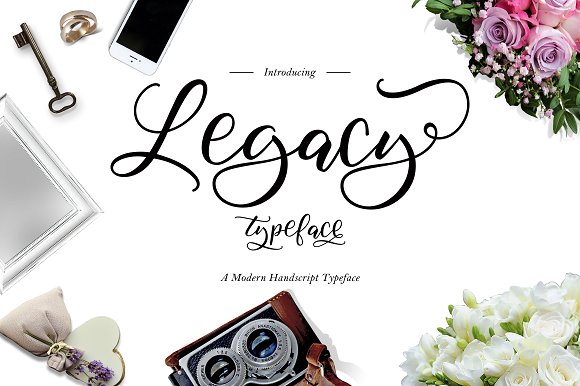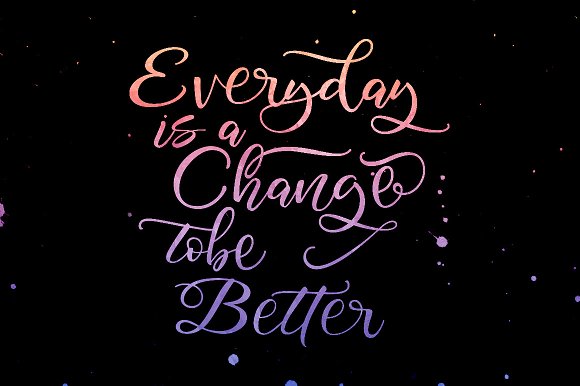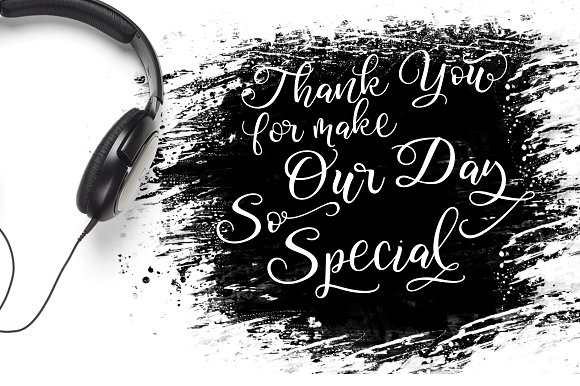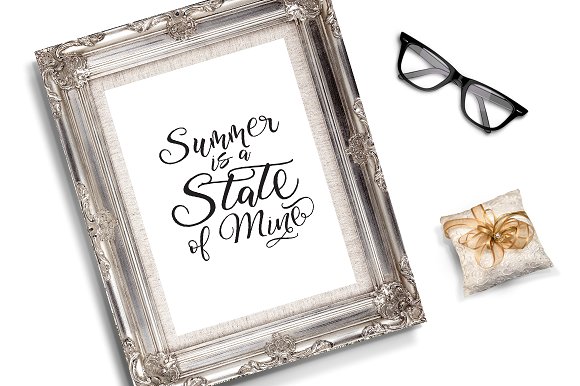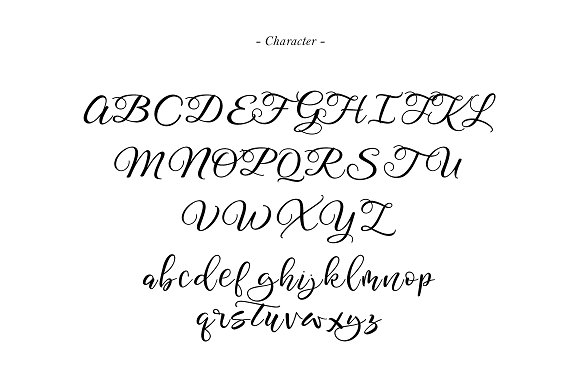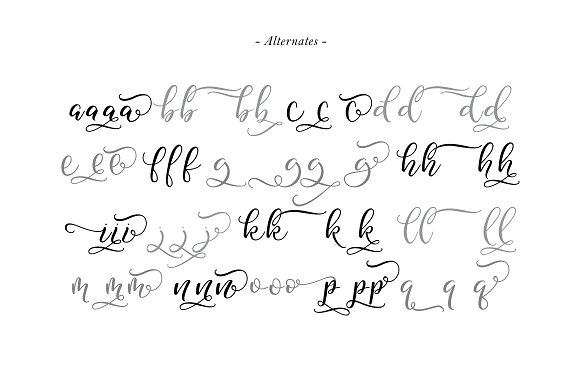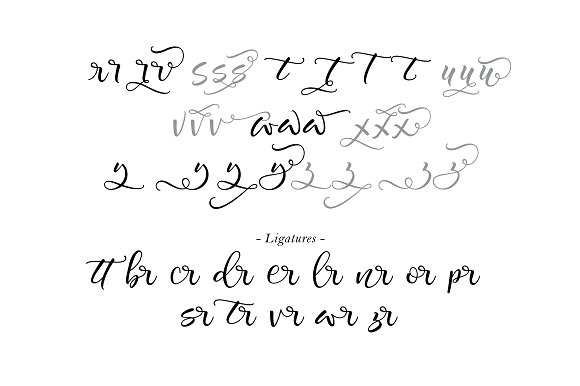
HomeScript FontsLegacy Font Script Fonts Legacy Font FacebookXPinterestWhatsApp Legacy Font Poster 2 Legacy Font Poster 3 Legacy Font Poster 4 Legacy Font Poster 5 Legacy Font Poster 6 Legacy Font Poster 7 About Legacy Font Legacy is a playful handwritten typeface. It’s simple and with ease you can create awesome handwritten designs. DOWNLOAD NOW People also explored 3d Website Display Mockup Rectila Font Gerrano Font Astoylist Font Bentho Font Healing Font Sati Font Belvina Font Ego Font 365 0 TagsLegacy Font Previous articleMaximaz FontNext articleBillaneiva Font LEAVE A REPLY Cancel reply Comment: Please enter your comment! Name:* Please enter your name here Email:* You have entered an incorrect email address! Please enter your email address here Website: Save my name, email, and website in this browser for the next time I comment. Personal Use Free Consequences Personal Use Free Read more about this font Lost Treasure Personal Use Free Read more about this font Coffete Personal Use Free Read more about this font Barbatrick Personal Use Free Read more about this font BLOG How to Cut Any Font on Cricut: Convert a Font to SVG (Free) Turn any font into a clean SVG so it cuts crisp on Cricut - a quick 3-step workflow using a free font-to-SVG tool. Modern Sans-Serif Fonts That Brands Love in 2025 The 10 Best Handwriting Fonts to Add Personality to Your Designs Top 10 Handwritten Fonts That Elevate Your Designs